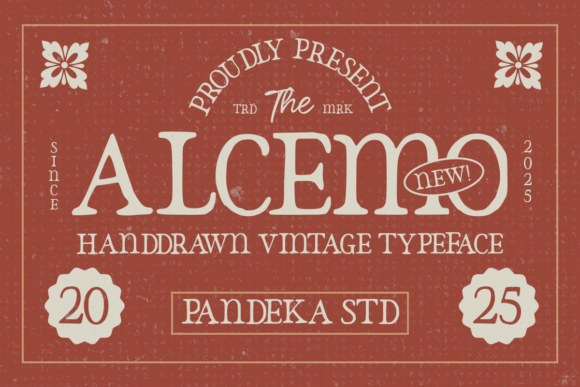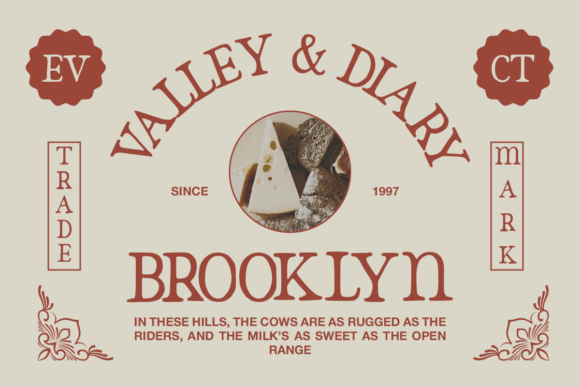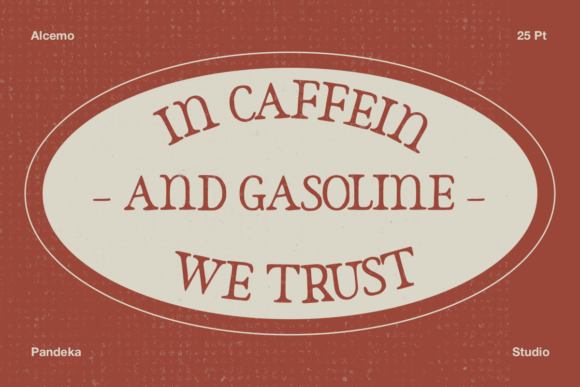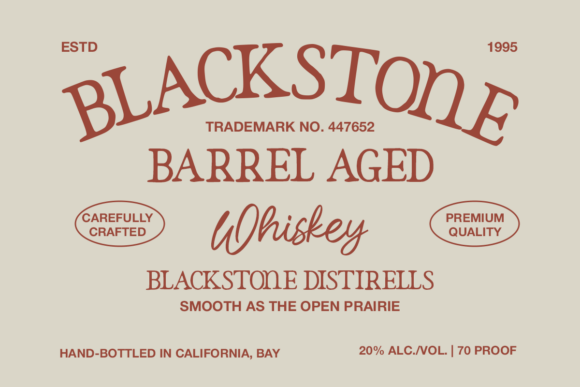
Alcemo Font: Rustic Serif Typography for Vintage Branding & Logo Design
About the Alcemo Font
Experience the unique personality of Alcemo Font, a font designed for impact. Alcemo is a hand-drawn serif typeface with a classic yet rustic aesthetic. Its carefully crafted letterforms and subtle imperfections bring an authentic vintage feel, perfect for branding, packaging, posters, editorial layouts, and signage. With its bold and timeless design, Alcemo adds warmth and character to any creative project.
Alcemo thrives in applications requiring a touch of vintage charm and handcrafted authenticity. Headlines, logos, short-form text on packaging, and posters benefit greatly from its bold strokes and rustic character. However, its hand-drawn nature makes it less suitable for extended body text or UI elements where readability is paramount. Smaller sizes may lose clarity.
Consider pairing Alcemo with a clean sans-serif like Lato or Open Sans for a balanced contrast, enhancing readability in supporting text. Alternatively, a delicate script font such as Great Vibes could add a layer of elegance for sophisticated branding. For a more rustic feel, a complementary serif like Playfair Display could strengthen the vintage theme.
Alcemo projects a personality that is both bold and approachable, classic yet inviting. It’s ideal for brands conveying heritage, craftsmanship, or a touch of nostalgic warmth, making it a strong choice for food and beverage, artisanal goods, or businesses emphasizing tradition and quality.